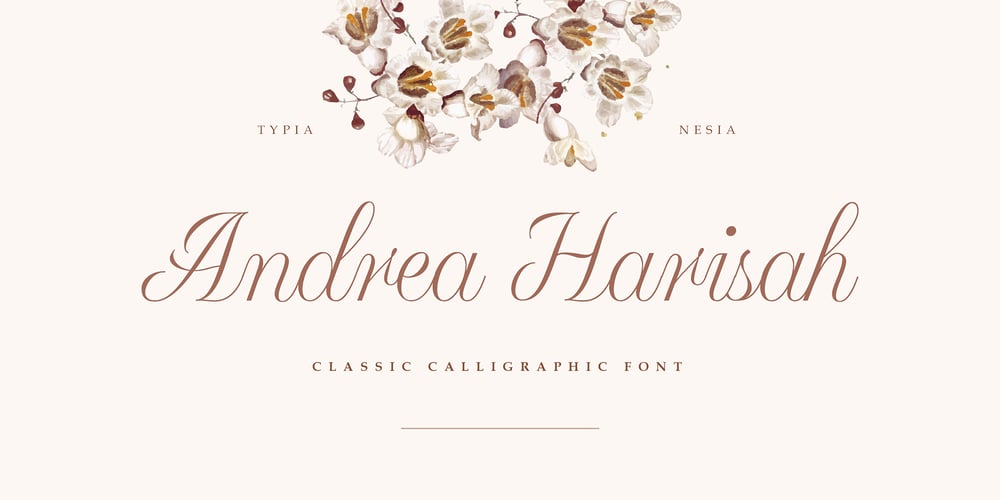
Andrea Harisah Font Family was designed by Arief Setyo Wahyudi and published by Typia Nesia. Andrea Harisah contains 1 styles and family package options. Andrea Harisah is a Classic Calligraphic Font that radiates elegance and Beauty charm. Its flowing, hand-drawn strokes and Aesthetic design make it the perfect choice for projects that require a touch of classic beauty to any project. Ideal for wedding invitations, branding, greeting cards, editorial design, luxury packaging, certificates and diplomas, use the font for designing certificates of achievement, diplomas, and awards, providing a formal and classic appearance.